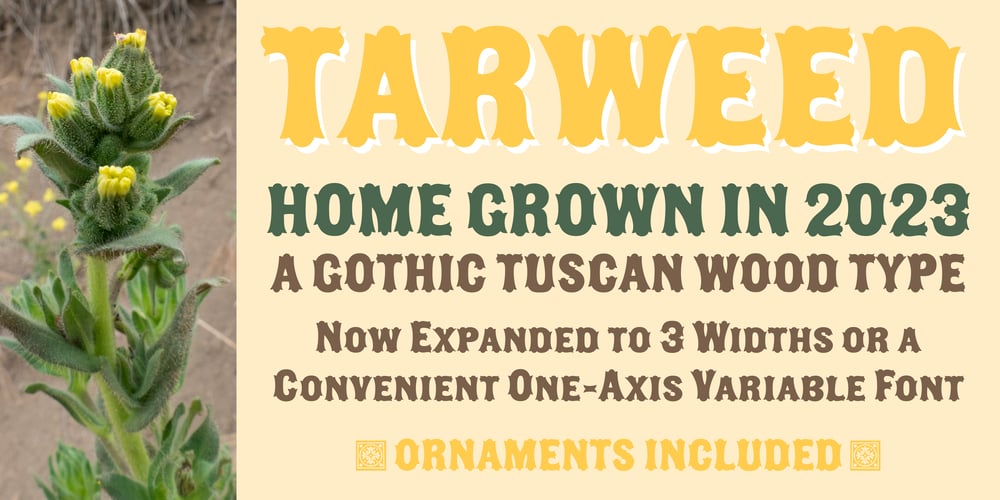
Tarweed Font Family was designed by Steve Matteson and published by Matteson Typographics. Tarweed contains 3 styles and family package options. Tarweed is based on a Gothic Tuscan style wood type. Its floral decorative stem endings are similar to the buds of the pungent Tarweed flower found at elevation in the Rockies. Useful for any 19th century-looking typographic design Tarweed’s style can be useful for flower shops, billiard halls, music venues, restaurants and more. Expertly crafted to be used at large sizes these fonts also work well in digital applications.